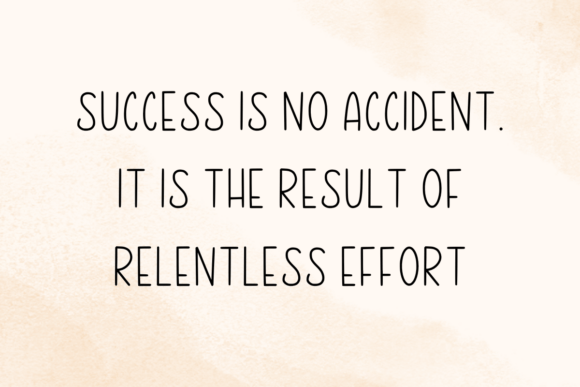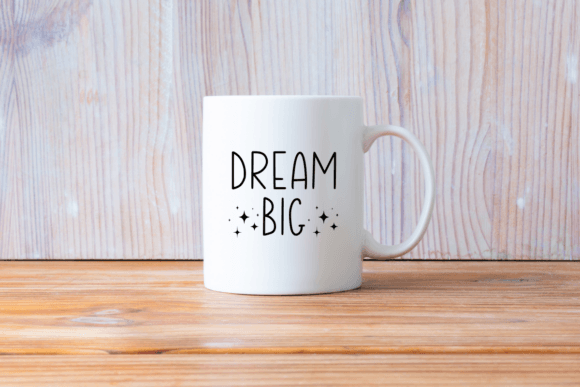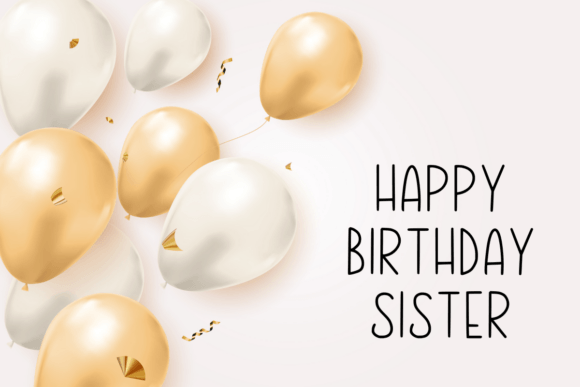
Introduction to Holiday Theme Font
Holiday Theme is a sweet and friendly sans serif font.
Key Features of Holiday Theme Font
Why Choose Holiday Theme Font?